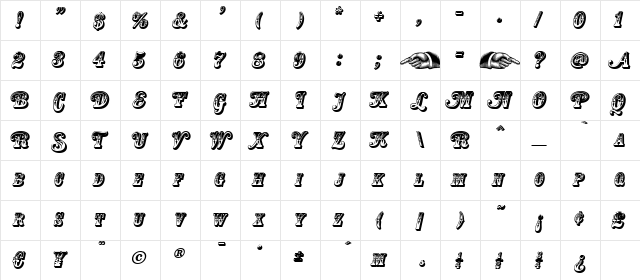
Country Western Swing Title Regular
| Designer | Michael Hagemann |
Design Context for Country Western Swing Title Typeface
Country Western Swing Title taps into classic Western woodtype traditions — bold, characterful, and impossible to ignore.
Perfect for barbecue restaurants, country music branding, vintage poster design, and rustic packaging.
Font Pairing: Combine Country Western Swing Title with a simple slab or neutral sans — period-accurate companions reinforce the vintage feel without competing for attention.
Pro Tip: Pair Country Western Swing Title with aged textures or distressed backgrounds to amplify its vintage personality.